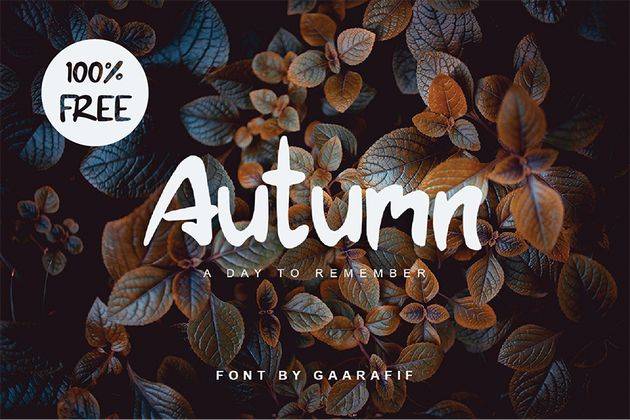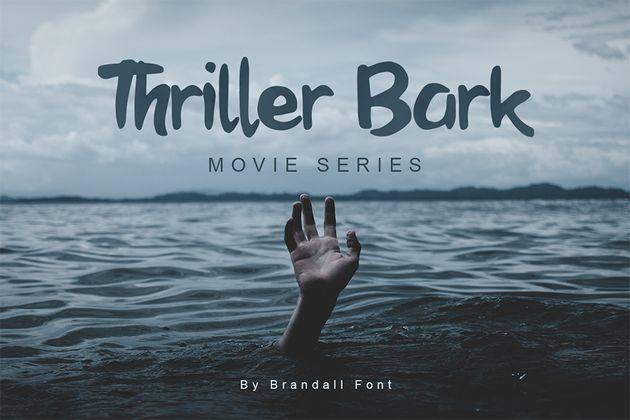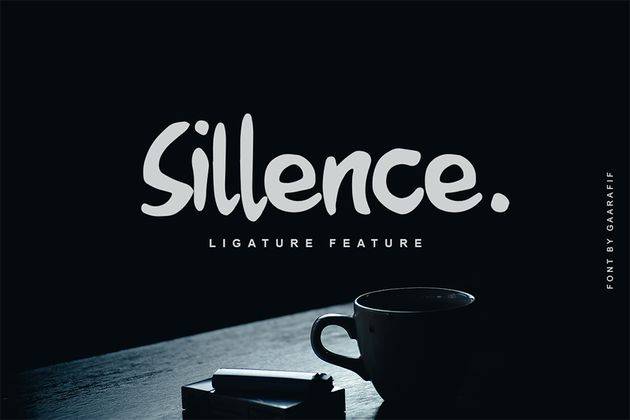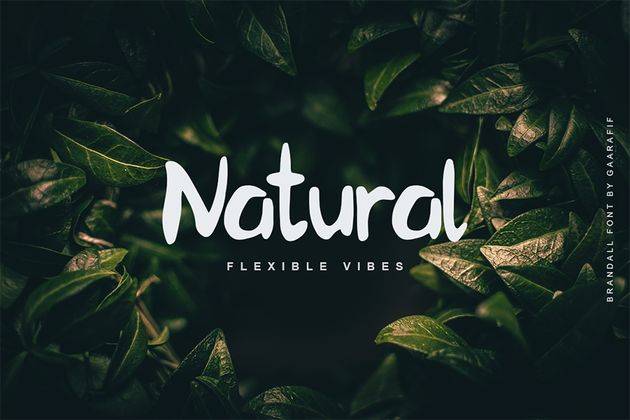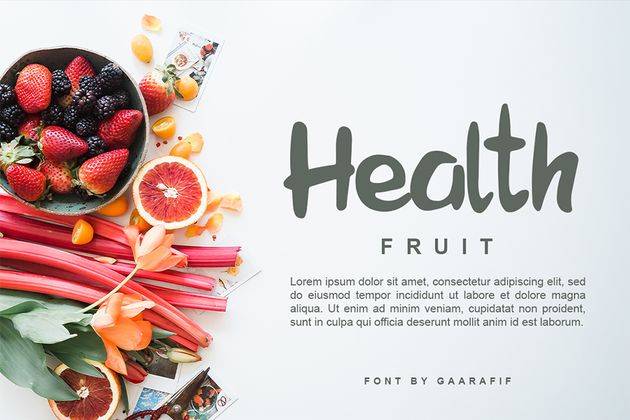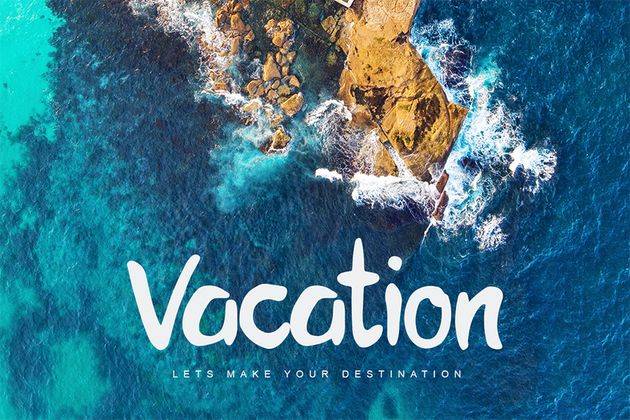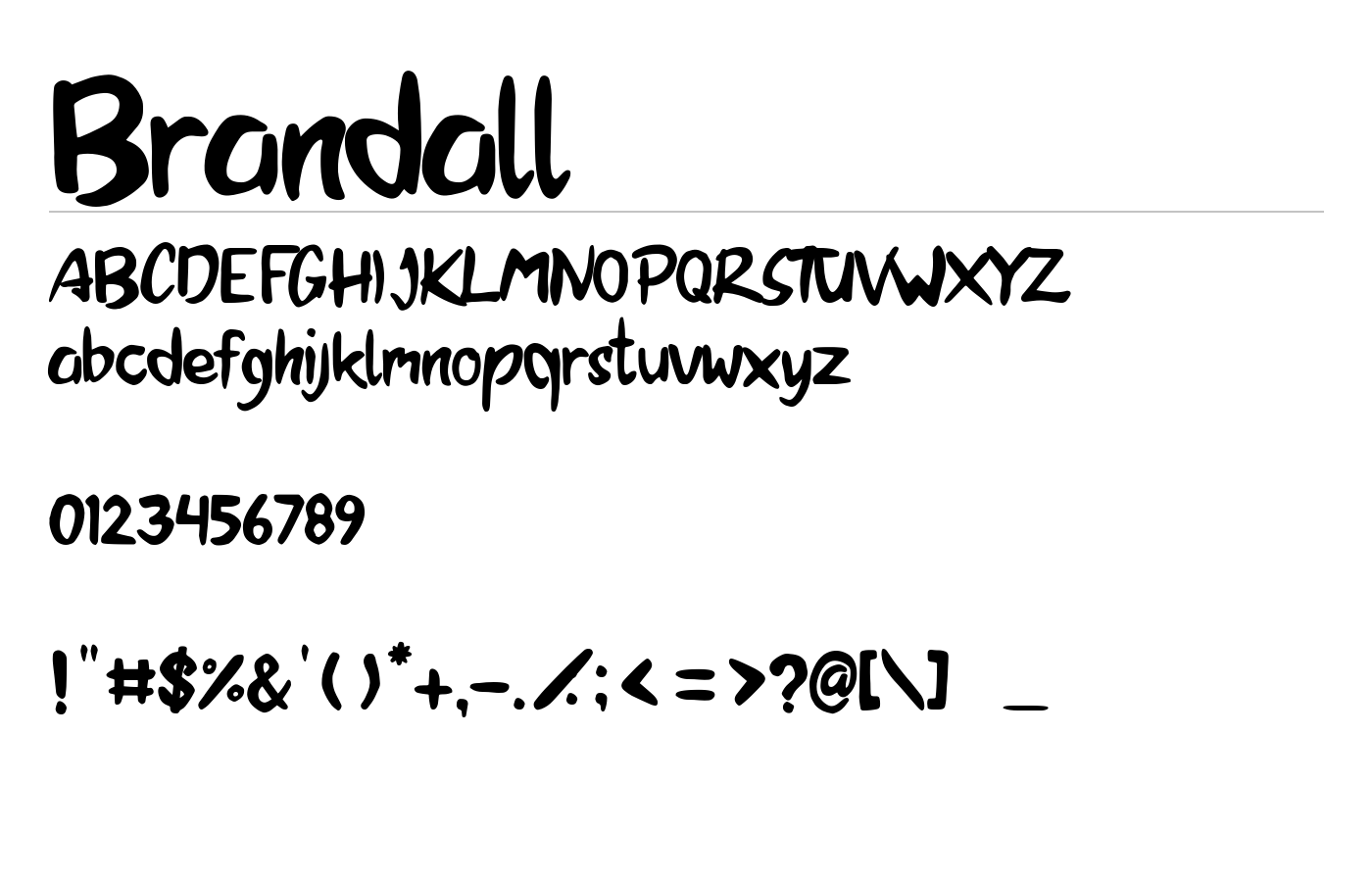
Autumn Display Font is a playful and casual handwritten typeface with a friendly, informal feel. Its lively, rounded letterforms with varying stroke widths create a warm, approachable look, making it perfect for creative projects, children's materials, and branding that seeks a personal touch. This font works well for headlines, logos, and packaging where a fun and inviting style is desired.
Autumn Display Font
About Autumn Display Font
| Font family | Autumn Display Font |
| Designer | Afif Rosadi |